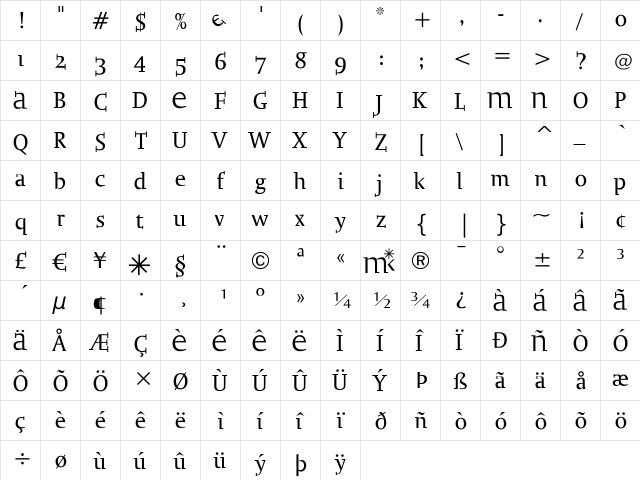
BradbOGilvy Regular
Design Context for BradbOGilvy Typeface
BradbOGilvy takes a measured approach to typography — its balanced proportions and neutral character make it a reliable workhorse for both digital and print work.